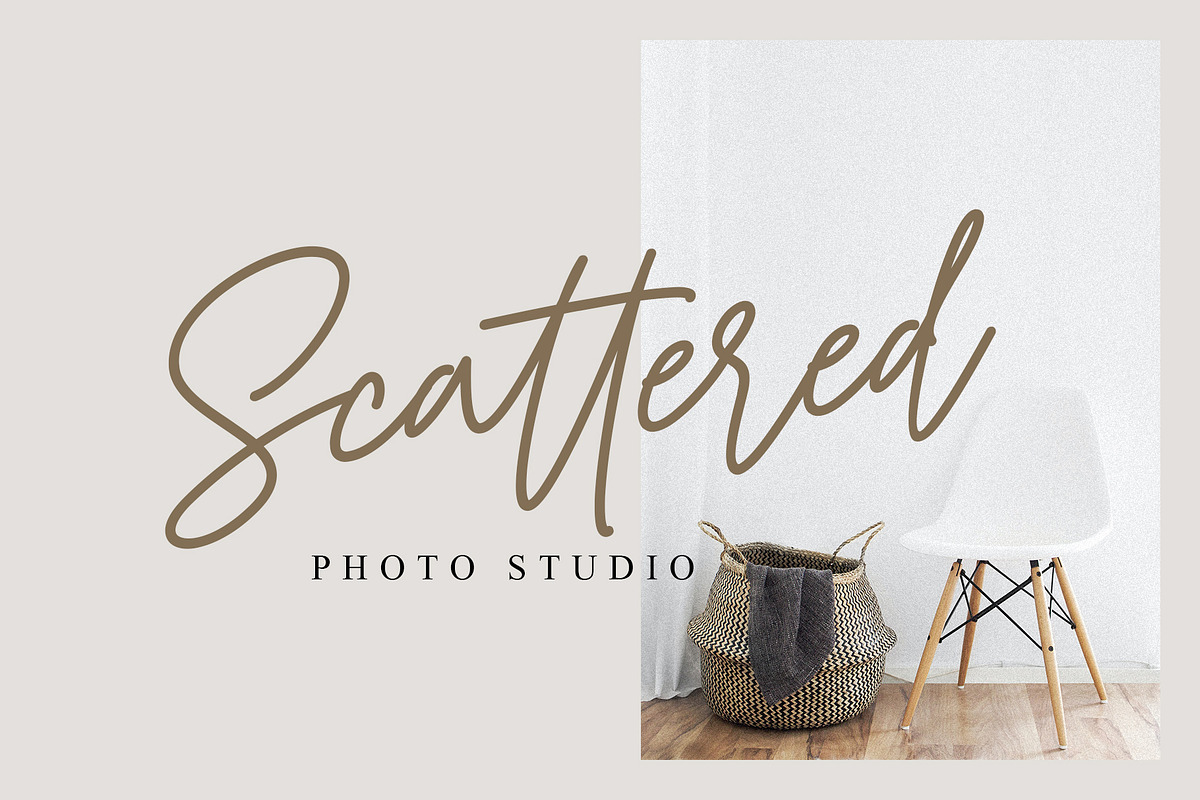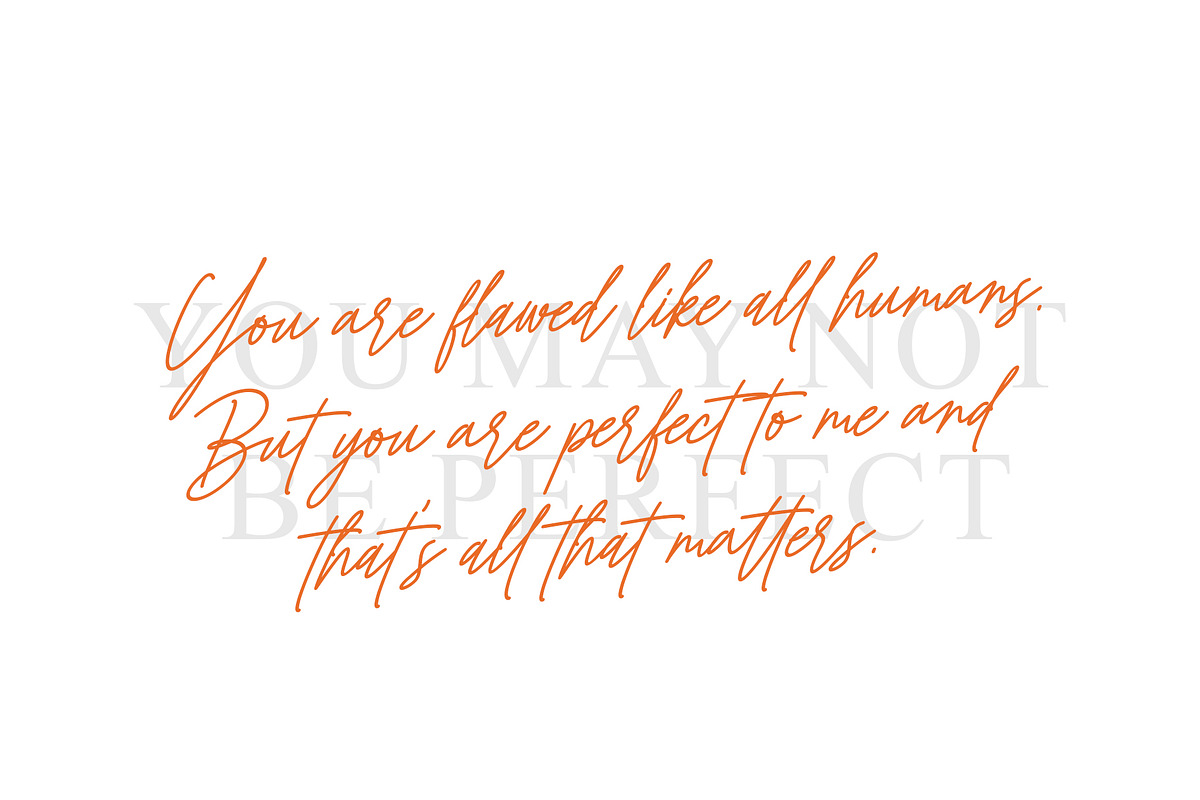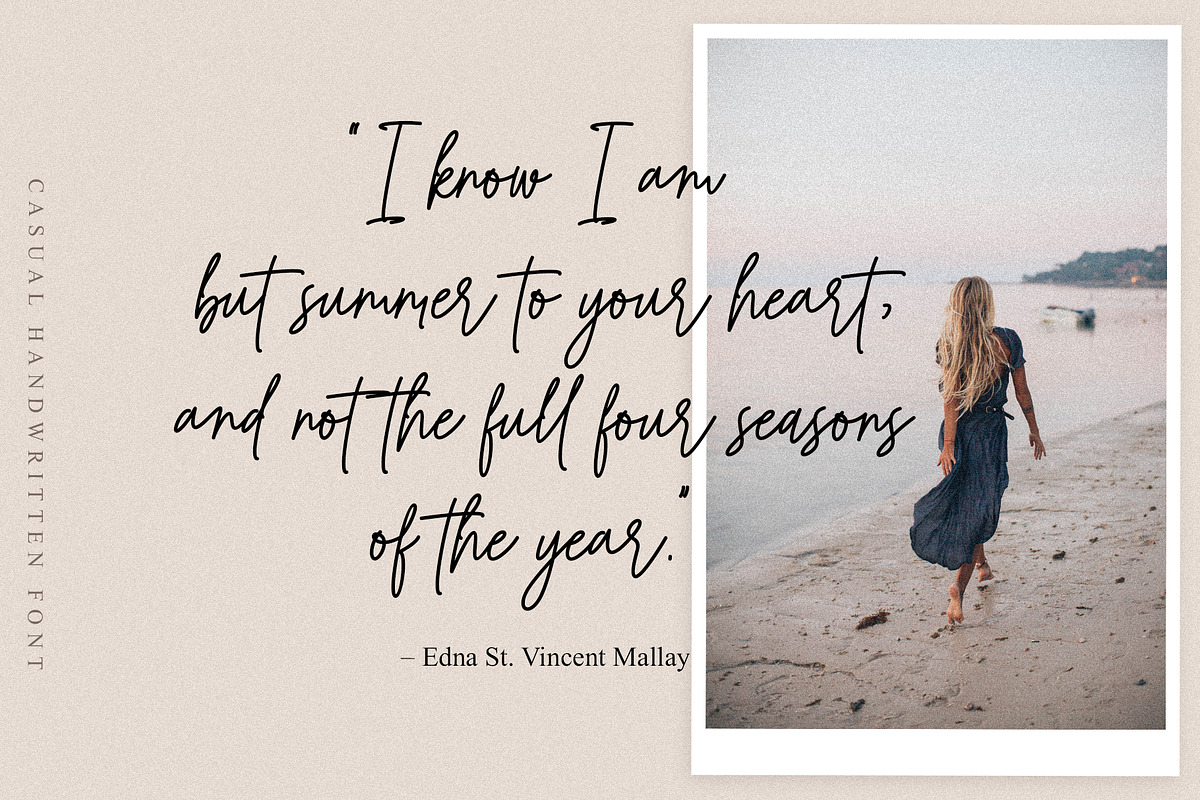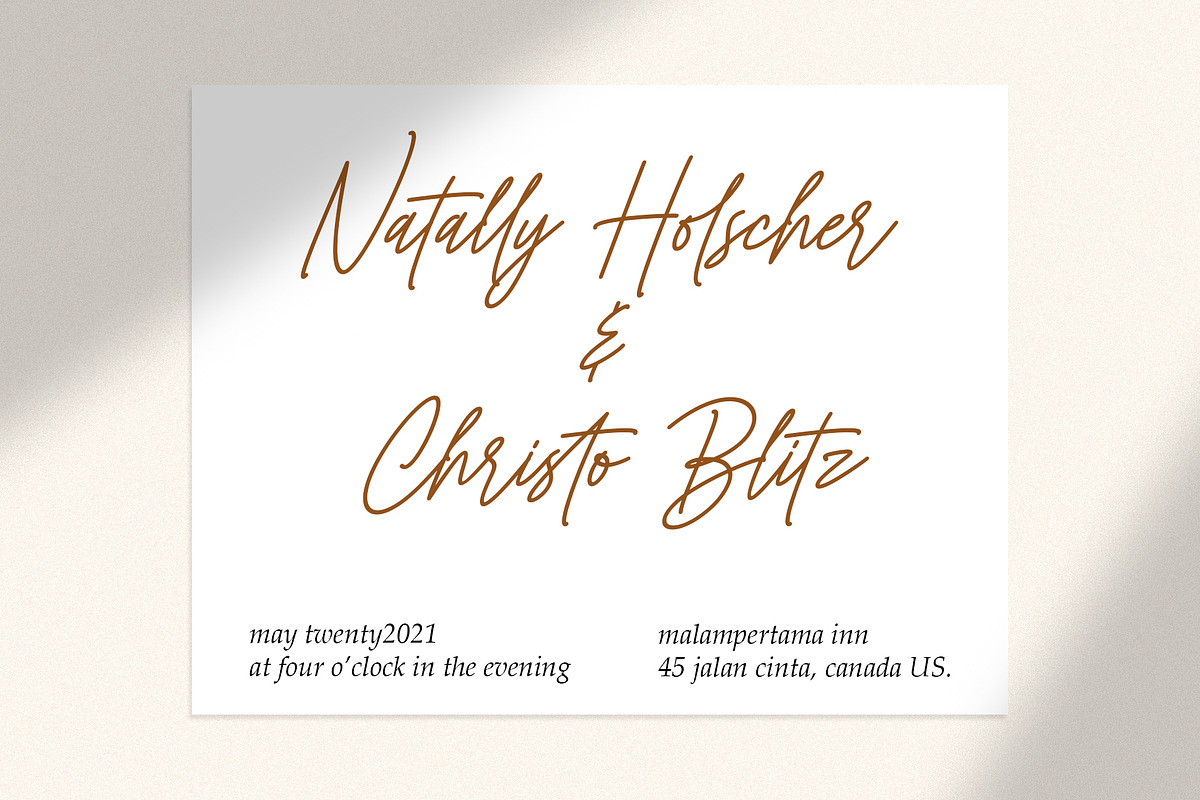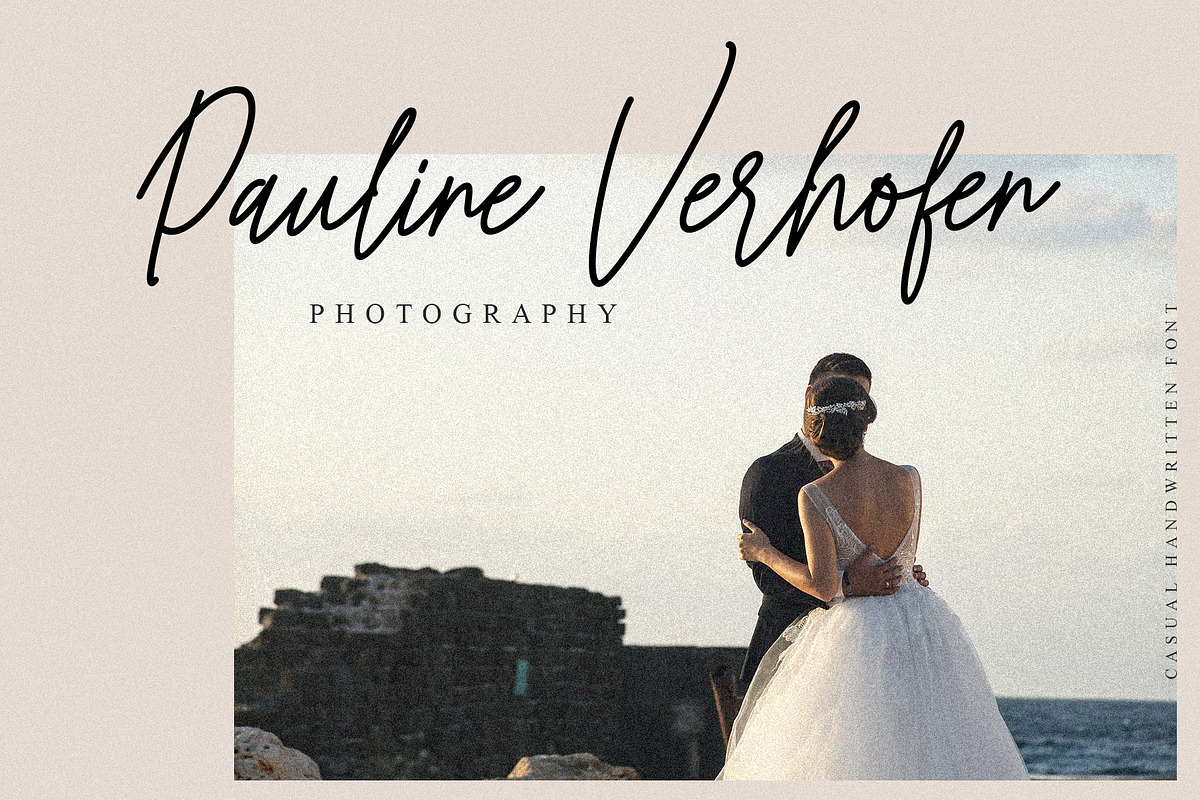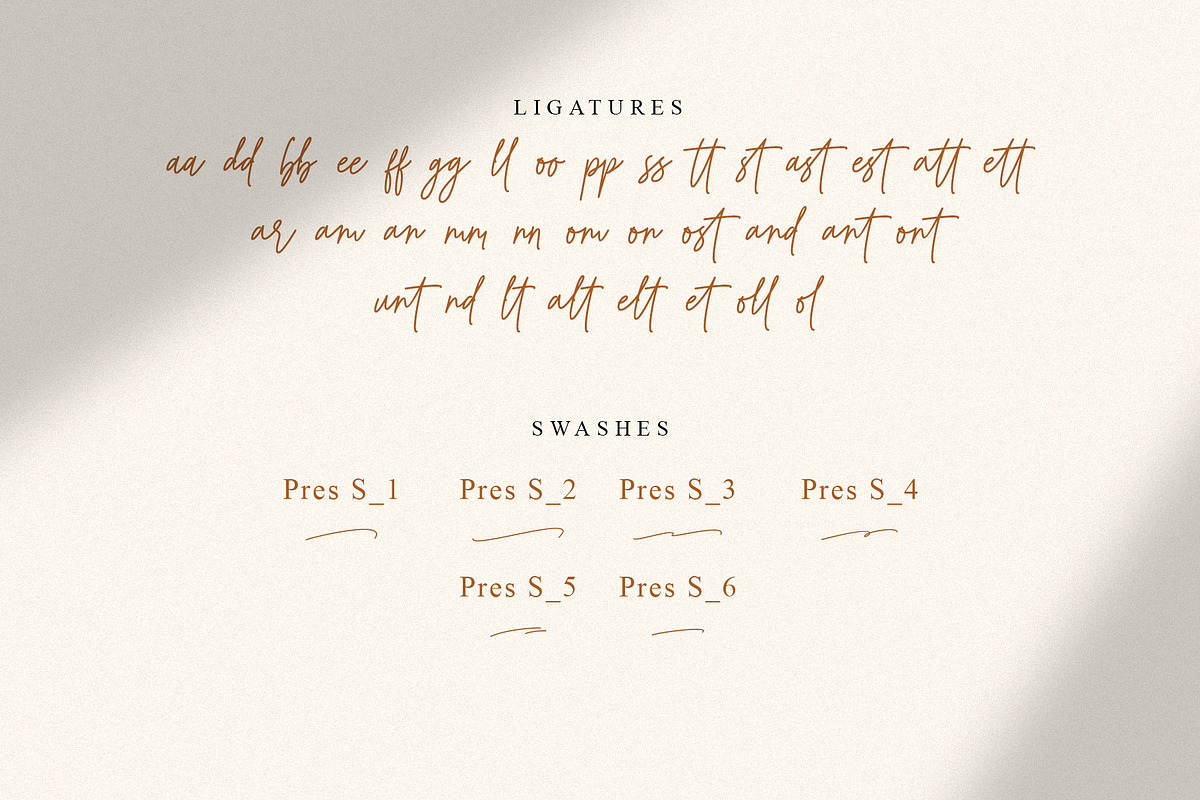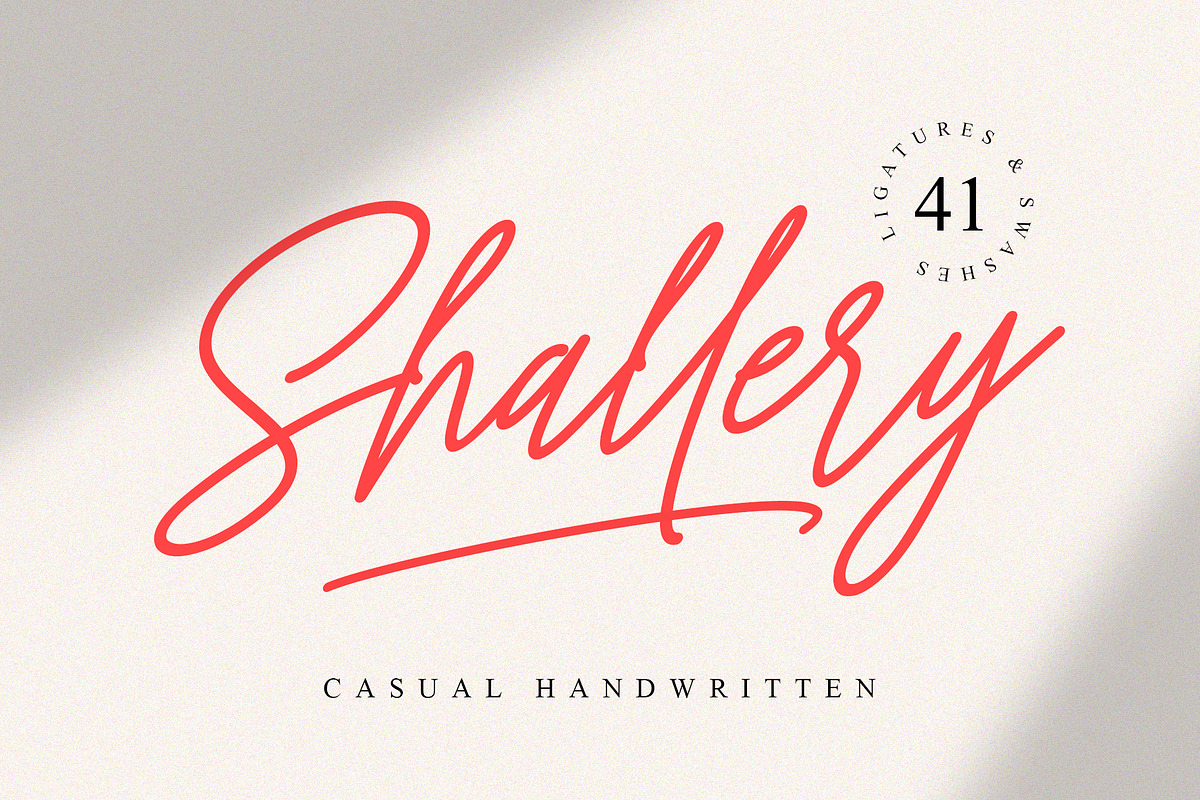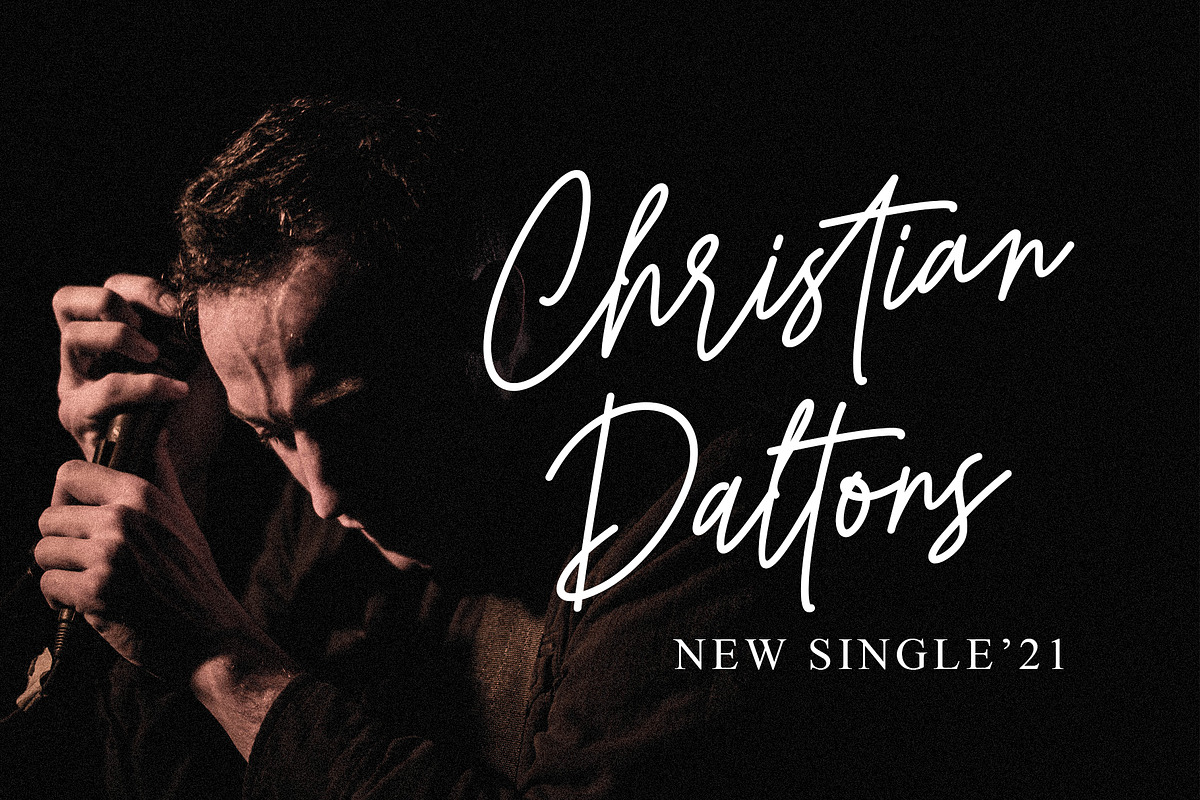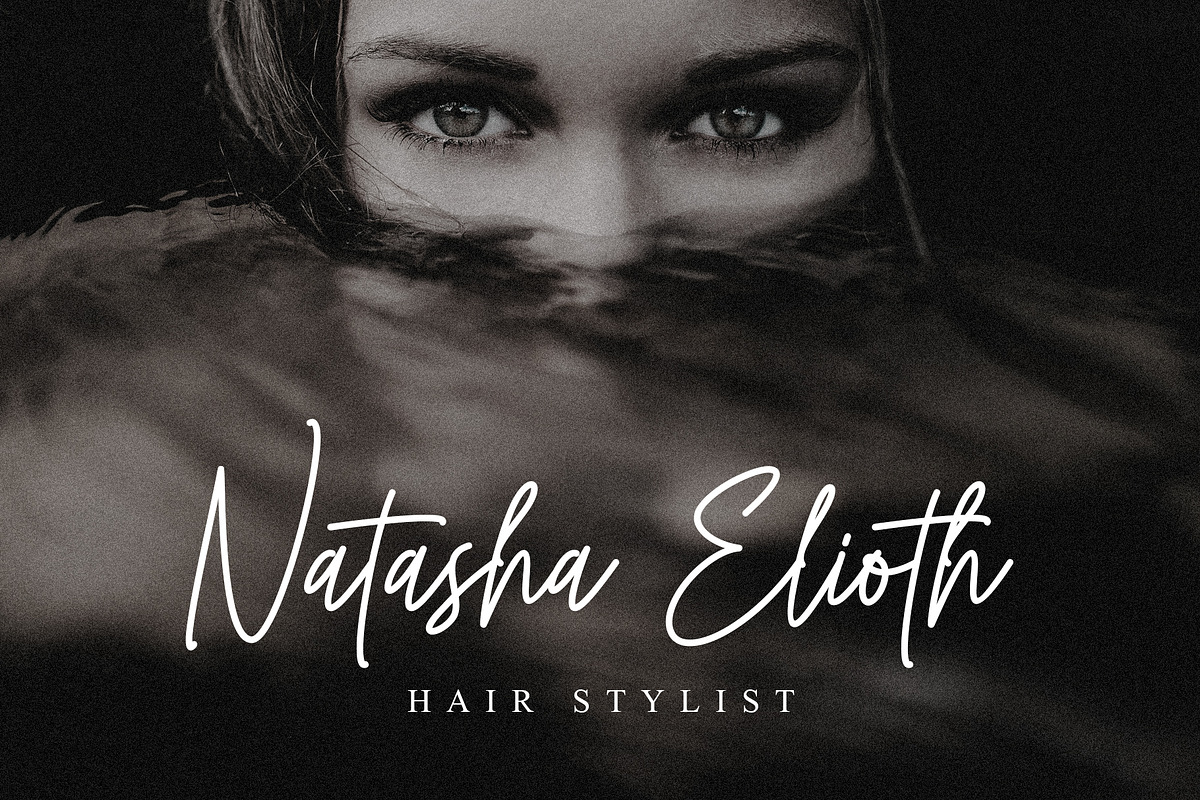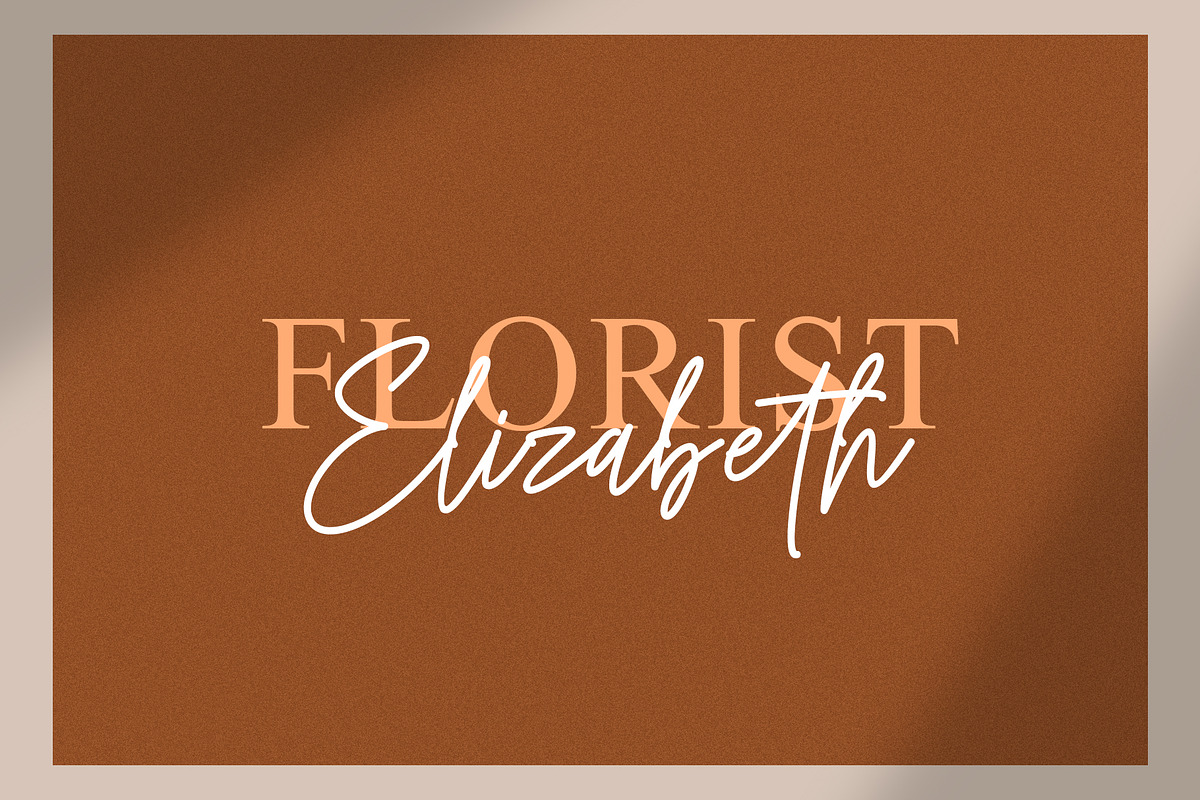
Shallery - Casual Handwritten
Shallery is a lovely and delicate script font that exudes elegance and class. This font was particularly crafted for those who need a beautiful and refreshing look to their designs.